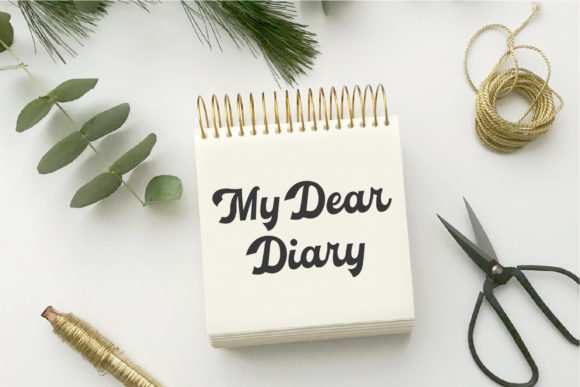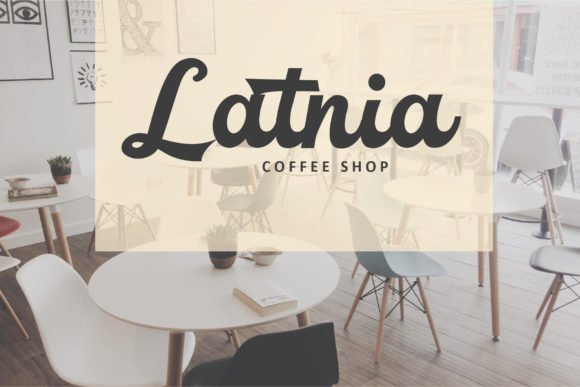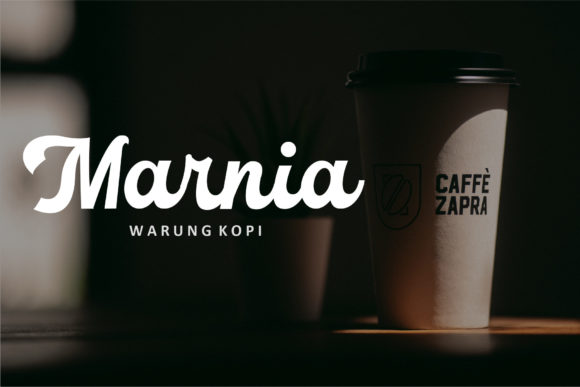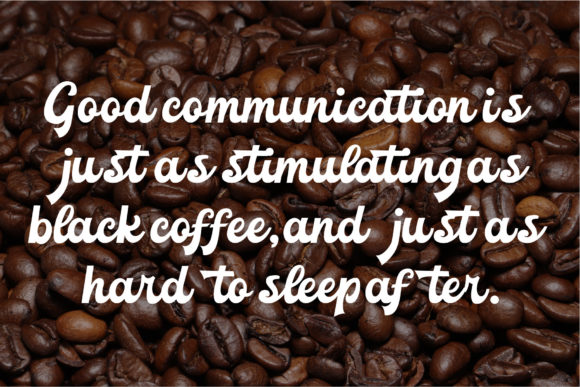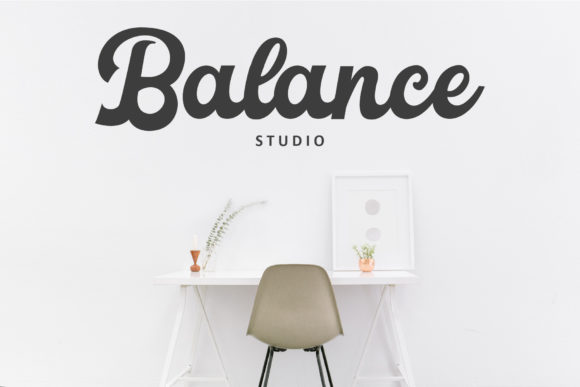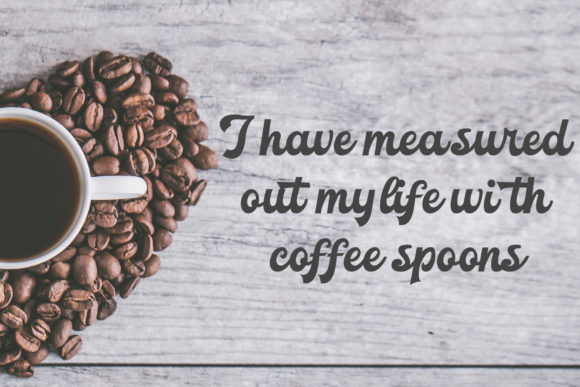
Gamond Font: Elevate Your Designs with a Stylish and Bold Handwritten Touch
In the world of typography, fonts play a crucial role in conveying the tone and personality of a design. For designers and crafters looking to add a touch of sophistication and nostalgia to their projects, the Gamond font is an excellent choice. This gorgeous and bold handwritten font is crafted to give your headlines and logotype projects a stylish touch, making it perfect for those seeking to make a lasting impression.
The Characteristics of Gamond Font
Gamond font reads as strong, confident, and dynamic, making it an ideal choice for designers who want to add a sense of boldness to their work. Its handwritten nature gives it a unique and personal touch, adding a layer of warmth and character to any design. The font’s bold and expressive strokes make it perfect for headlines, logotypes, and other display text, while its clean and elegant lines ensure that it remains legible even at larger sizes.
Adding Nostalgic Character to Your Designs
One of the standout features of the Gamond font is its ability to add tons of nostalgic character to your designs. Its classic and timeless feel evokes memories of traditional printing and handwritten scripts, making it perfect for projects that require a vintage or retro touch. Whether you’re working on a branding project, packaging design, or editorial layout, Gamond font can help you create a sense of history and heritage that resonates with your audience.
Why Designers and Crafters Love Gamond Font
So, why do designers and crafters love Gamond font? For starters, its versatility makes it suitable for a wide range of projects, from digital designs to print materials. The font’s bold and confident nature also makes it perfect for headlines and titles, while its elegant lines ensure that it remains legible even at smaller sizes. Additionally, Gamond font is highly customizable, allowing designers to experiment with different colors, textures, and effects to create a unique look that suits their brand or project.
Tips for Using Gamond Font Effectively
To get the most out of Gamond font, here are a few tips to keep in mind:
- Use it for headlines and titles: Gamond font is perfect for making a bold statement, so use it to grab attention and draw the reader in.
- Experiment with colors and textures: Don’t be afraid to get creative with Gamond font – try pairing it with different colors, textures, and effects to create a unique look.
- Pair it with other fonts: Gamond font works well with a variety of other fonts, so don’t be afraid to experiment with different pairings to find the perfect combination.
- Use it consistently: To create a cohesive look, use Gamond font consistently throughout your design – whether it’s a logo, headline, or body text.
| Font Name | Gamond Font |
| Author | The1stWinner |
In conclusion, Gamond font is a stylish and bold handwritten font that’s perfect for designers and crafters looking to add a touch of sophistication and nostalgia to their projects. Its strong, confident, and dynamic nature makes it ideal for headlines and logotypes, while its clean and elegant lines ensure that it remains legible even at larger sizes. With its versatility, customizability, and timeless feel, Gamond font is an excellent choice for anyone looking to elevate their designs and make a lasting impression.
Whether you’re working on a branding project, packaging design, or editorial layout, Gamond font is sure to become a go-to choice in your typography arsenal. So why not give it a try and see how it can transform your designs?